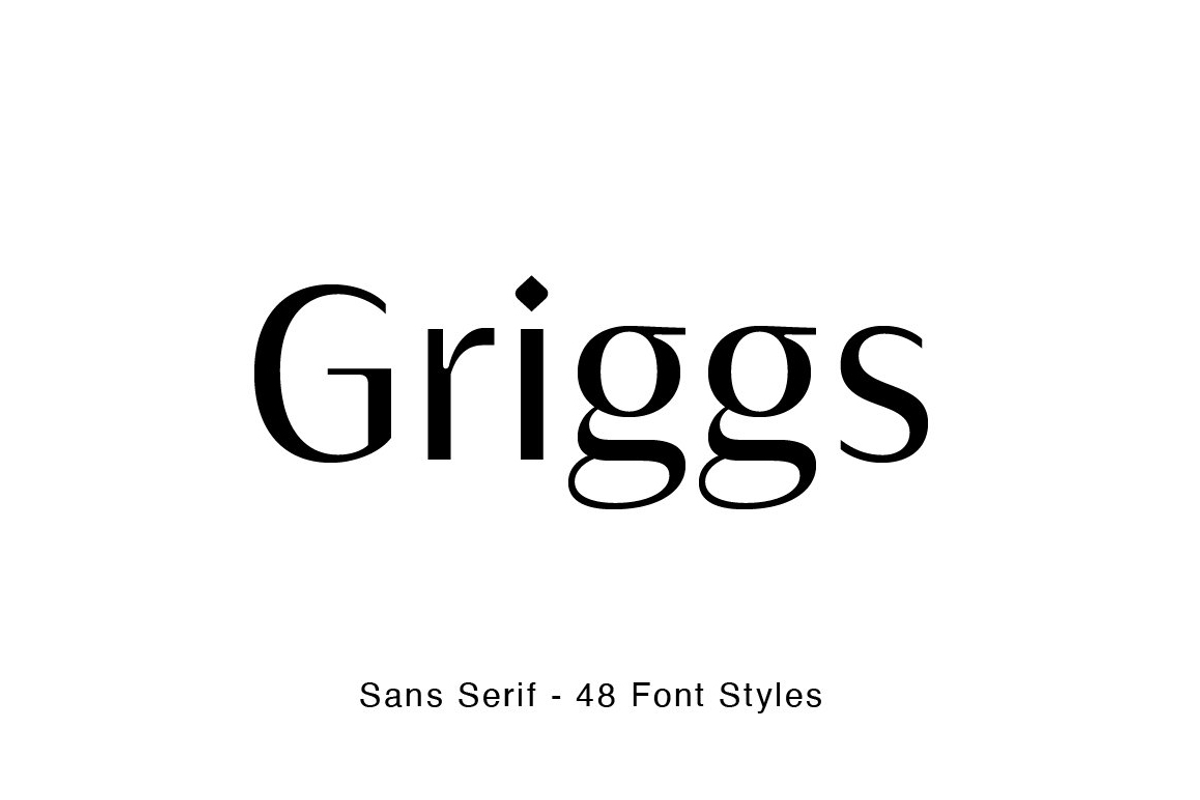
Griggs Sans Serif Free Download
Griggs Sans Serif Font Free Download
Griggs Sans Serif Font Free Download is a sleek, contemporary typeface designed to add modern sophistication to your design projects. With its clean lines, balanced proportions, and geometric style, Griggs is perfect for branding, logos, editorial design, websites, and advertising materials that require clarity and professionalism.
This versatile sans serif font ensures excellent readability and offers a minimalist, high-end feel, making it ideal for both large headings and body text. Whether you're working on a corporate identity, digital content, or print media, Griggs delivers a refined and polished look to your typography.
Designers love Griggs for its simplicity, versatility, and timeless appeal across both print and digital platforms. Ready to bring clarity and style to your next project? Download Griggs Sans Serif Font Free Download and give your designs a clean, modern edge.